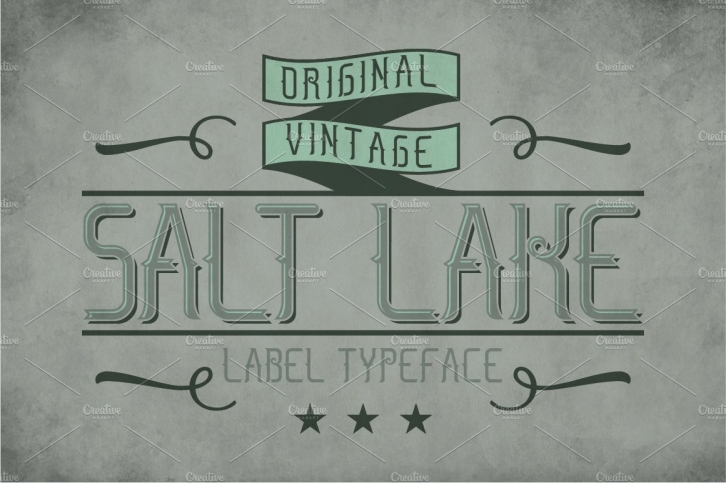
Introducing a vintage look label typeface named "Salt Lake". It's made in strong and vintage label style. Typeface is good viewed on any labels design.
- You can mix effects (look at 4-th screenshot)